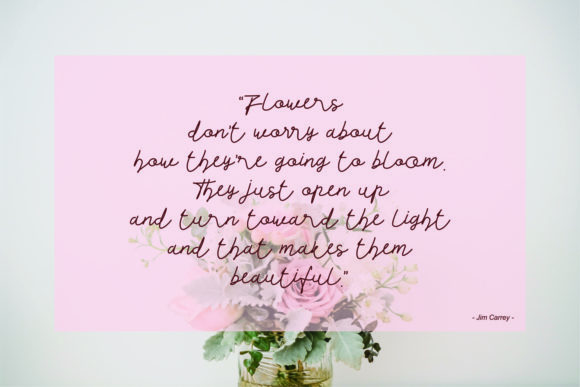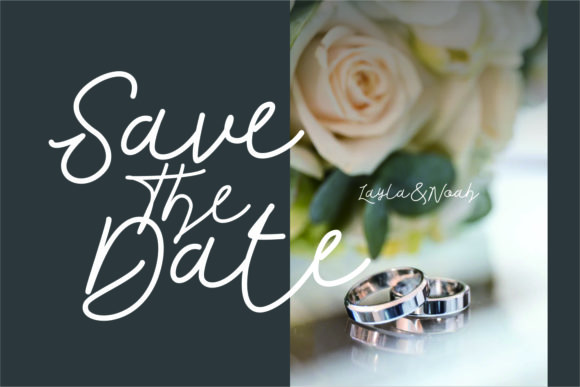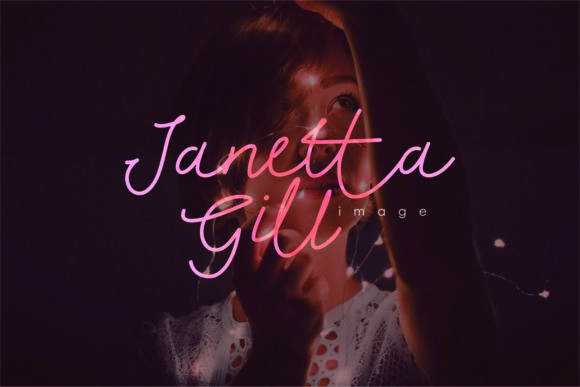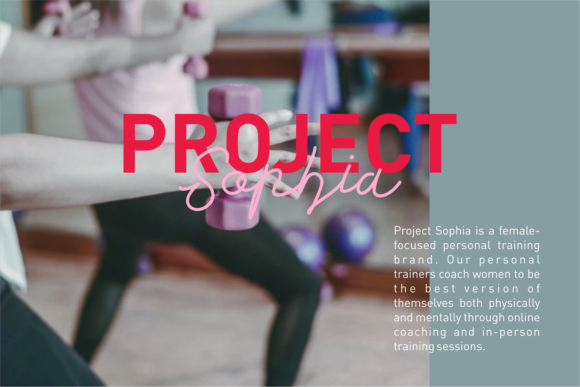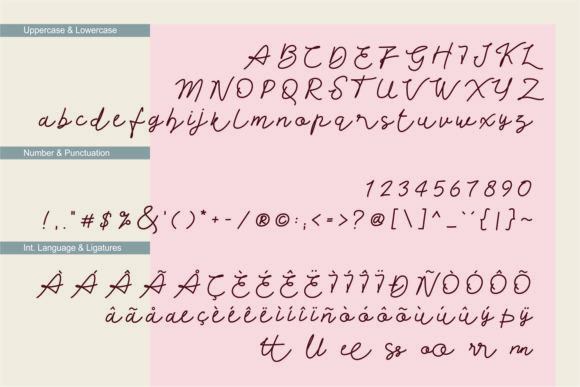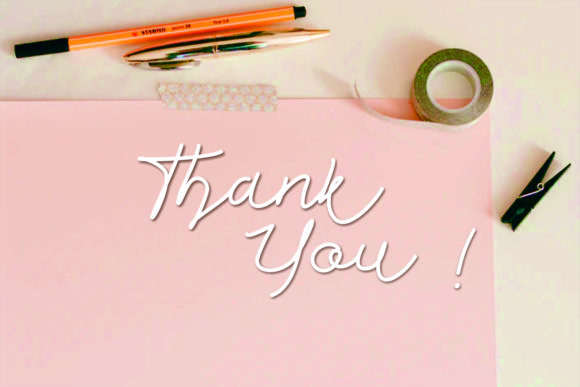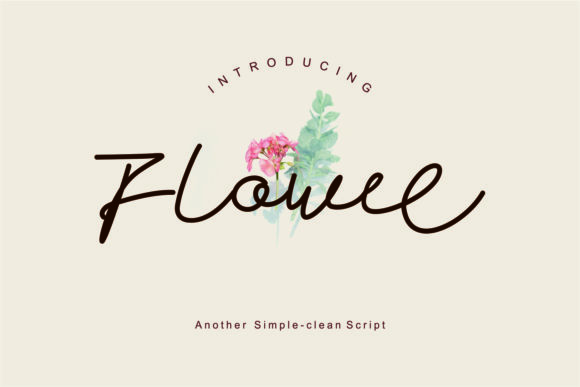
Discover the Elegance of Flowee Font: Elevate Your Designs with a Personalized Touch
Are you a designer or crafter looking for a font that adds a touch of elegance and personality to your creations? Look no further than Flowee Font, a lovely script font that features a stylish flow, perfect for a variety of designs requiring a personalized style. In this article, we’ll dive into the world of Flowee Font, exploring its characteristics, uses, and benefits, and why it’s a must-have for your design arsenal.
What is Flowee Font?
Flowee Font is a beautiful script font that boasts a unique and stylish flow, making it perfect for designs that require a personal touch. Its elegant and cursive letters are designed to add a touch of sophistication and glamour to any project. Whether you’re working on wedding invitations, thank you cards, weddings, greeting cards, logos, or any other design that requires a personalized style, Flowee Font is the perfect choice.
Characteristics of Flowee Font
So, what makes Flowee Font so special? Here are some of its key characteristics:
• Elegant and Cursive: Flowee Font features elegant and cursive letters that add a touch of sophistication to any design.
• Stylish Flow: The font’s stylish flow makes it perfect for designs that require a personal touch.
• Versatile: Flowee Font is versatile and can be used for a variety of designs, including wedding invitations, thank you cards, weddings, greeting cards, logos, and more.
• Easy to Read: Despite its elegant and cursive nature, Flowee Font is easy to read, making it perfect for designs that require a clear and concise message.
Uses of Flowee Font
Flowee Font is perfect for a variety of designs that require a personalized style. Here are some of the most popular uses of Flowee Font:
• Wedding Invitations: Add a touch of elegance and sophistication to your wedding invitations with Flowee Font.
• Thank You Cards: Express your gratitude with style using Flowee Font on your thank you cards.
• Weddings: Use Flowee Font to add a personal touch to your wedding designs, including programs, menus, and more.
• Greeting Cards: Create beautiful and personalized greeting cards for any occasion using Flowee Font.
• Logos: Use Flowee Font to create a unique and personalized logo for your business or brand.
Benefits of Using Flowee Font
So, why should you choose Flowee Font for your designs? Here are some of the benefits of using Flowee Font:
• Adds a Personal Touch: Flowee Font adds a personal touch to any design, making it perfect for designs that require a unique and personalized style.
• Elegant and Sophisticated: Flowee Font is elegant and sophisticated, making it perfect for designs that require a high level of professionalism.
• Versatile: Flowee Font is versatile and can be used for a variety of designs, making it a great addition to your design arsenal.
• Easy to Use: Flowee Font is easy to use and can be easily integrated into your designs.